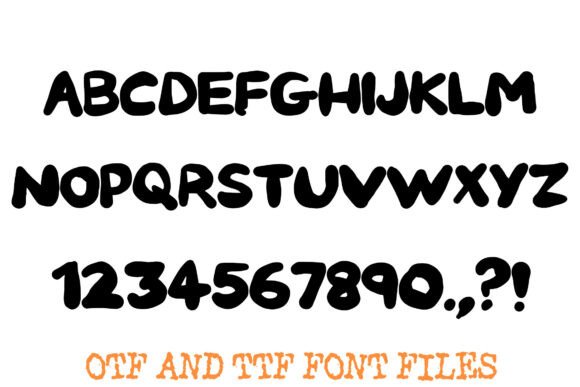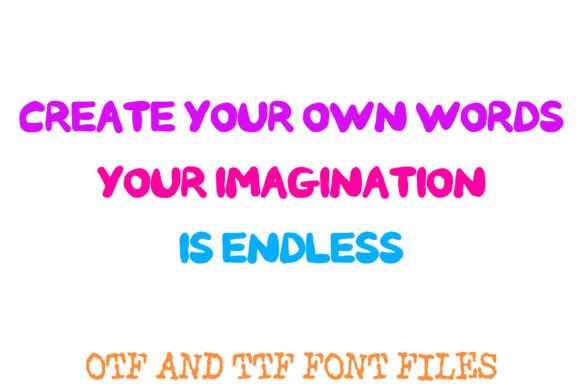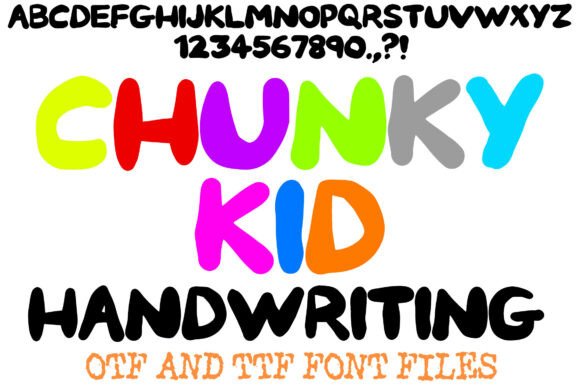
Introducing Chunky Kid Font: The Ultimate Playful Typeface for Your Designs
Are you looking for a font that can add a touch of playful charm and authentic innocence to your designs? Look no further than Chunky Kid Handwriting Display Font! This delightful typeface is perfect for infusing your creative projects with a burst of happiness and whimsy, reminiscent of a child’s enthusiastic handwriting.
The Whimsical Essence of Childhood
Chunky Kid Handwriting Font is designed to capture the natural, unbridled spirit of a child’s handwriting. Its bold, rounded shapes evoke the enthusiastic strokes of a beloved marker or crayon, bringing a sense of playfulness and joy to any design. This font is more than just a collection of characters; it’s an instant dose of happy nostalgia that will transport your audience back to a simpler, more carefree time.
A Font that Feels Hand-Drawn
Each character in Chunky Kid Handwriting Font is crafted with a clear, solid presence and a charming, slightly irregular hand-drawn feel. This unique blend of simplicity and cuteness makes it perfect for a wide range of creative projects, from children’s books and nursery decor to educational materials and playful branding. The font’s bubbly, organic forms are sure to delight audiences of all ages!
So, what can you create with Chunky Kid Handwriting Font? The possibilities are endless! Here are just a few ideas to get you started:
- Children’s books: Bring your story to life with a font that’s as playful as the characters within.
- Nursery decor: Add a touch of whimsy to nursery walls, bedding, and curtains with a font that’s both fun and charming.
- Educational materials: Make learning fun with a font that’s engaging and easy to read.
- Playful branding: Create a brand identity that’s as unique and playful as your products or services.
- Cheerful greeting cards: Spread joy and happiness with a font that’s sure to put a smile on anyone’s face.
- Invitations and labels: Add a personal touch to your party invitations, product labels, and more with a font that’s both playful and charming.
Why Choose Chunky Kid Font?
So, why choose Chunky Kid Handwriting Font for your next design project? Here are just a few reasons:
- Unique and playful: This font is sure to stand out in a sea of more traditional typefaces.
- Easy to read: Despite its playful nature, Chunky Kid Handwriting Font is clear and easy to read, making it perfect for a wide range of applications.
- Versatile: From children’s books to branding and packaging, this font can be used in a wide range of creative projects.
- Authentic: With its hand-drawn feel and whimsical essence, Chunky Kid Handwriting Font is the perfect way to add a touch of authenticity to your designs.
In conclusion, Chunky Kid Handwriting Display Font is the perfect addition to any design project that calls for a unique blend of simplicity and cuteness. With its bold, rounded shapes, charming hand-drawn feel, and whimsical essence, this font is sure to delight audiences of all ages. So why choose a boring, traditional typeface when you can add a touch of playful charm and authentic innocence to your designs with Chunky Kid Font? Download it today and start creating!